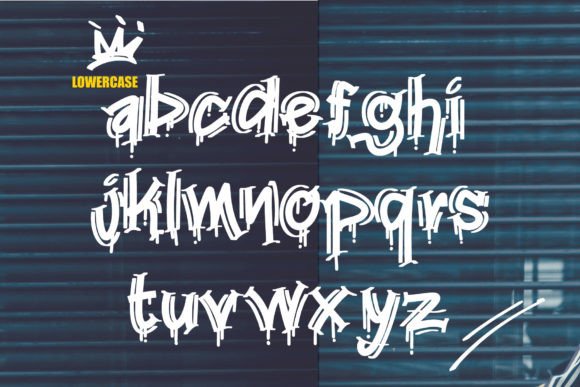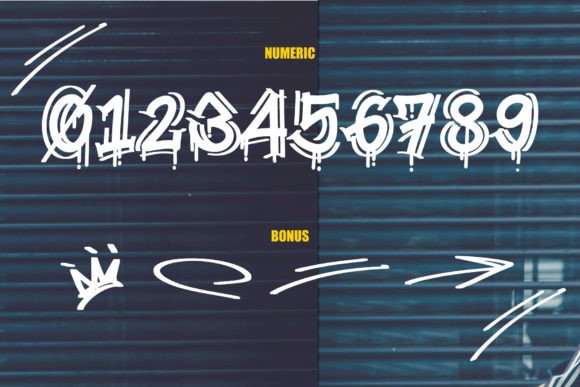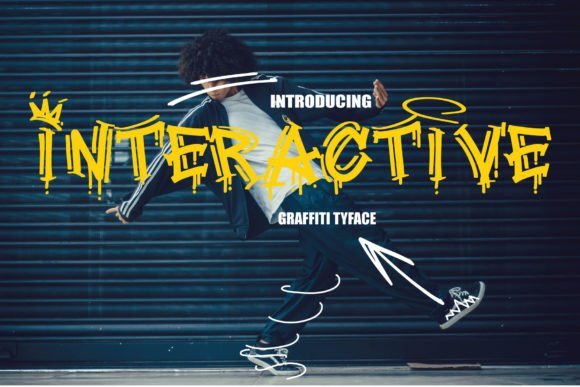
Introduction to Interactive Font
Interactive is a cool urban-styled outlined display font.
Add this font to your urban and casual creations, and you will love the outcome .
Key Features of Interactive Font
Why Choose Interactive Font?